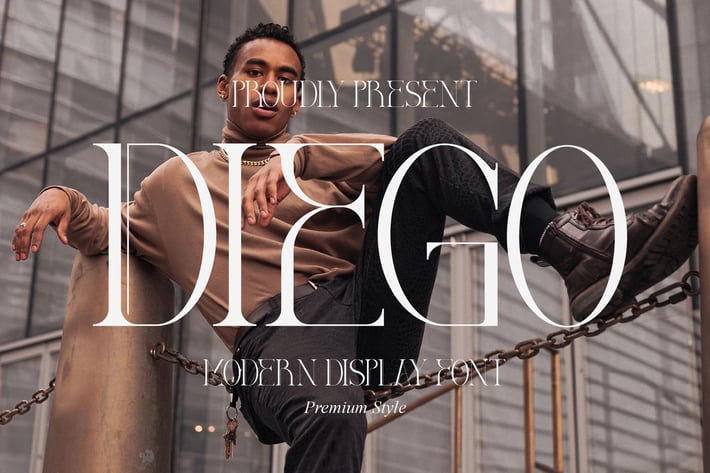
Diego Modern Display Font
Diego is a sleek and sophisticated modern serif display font that embodies luxury and confidence. With its tall letterforms and sharp contrast, it brings a high-fashion aesthetic to any project. Ideal for editorial designs, magazine covers, and premium branding that demands a refined, contemporary feel.
Modern serif with elegant high contrast
Stylish ligatures and alternates for custom typography
Excellent readability at large sizes
Works beautifully in both print and digital layouts
A statement of modern class — Diego brings a refined balance between timeless elegance and cutting-edge design.